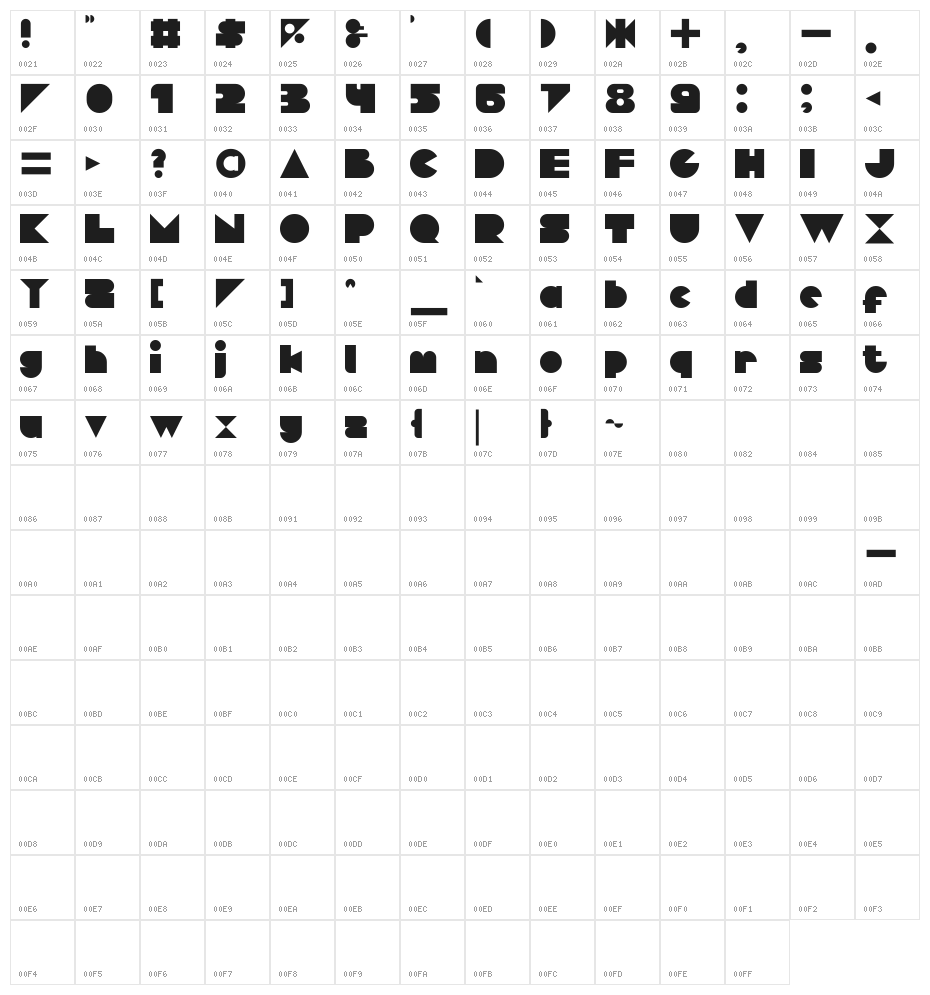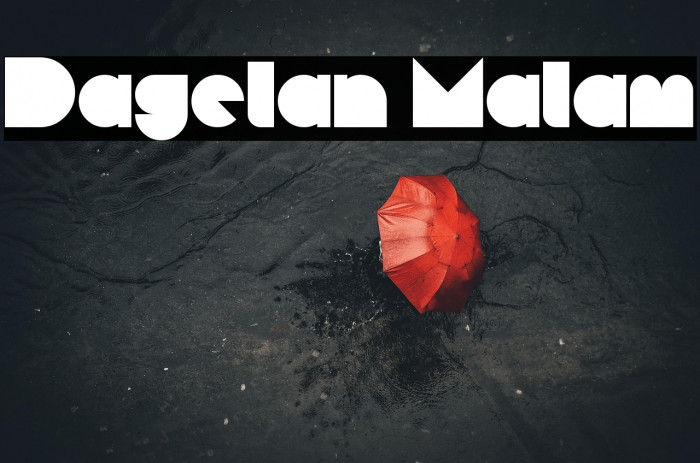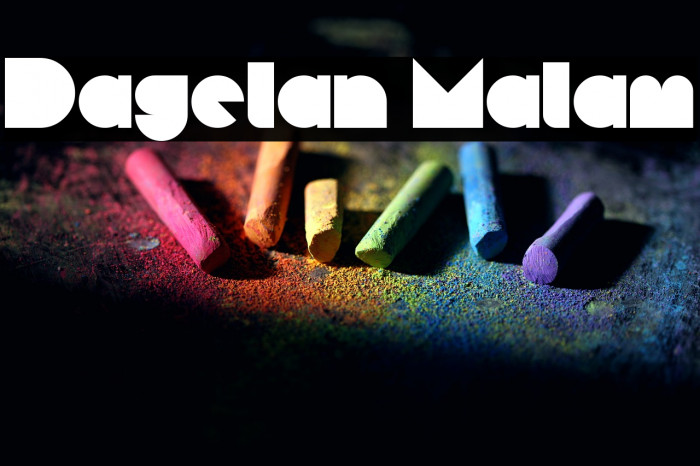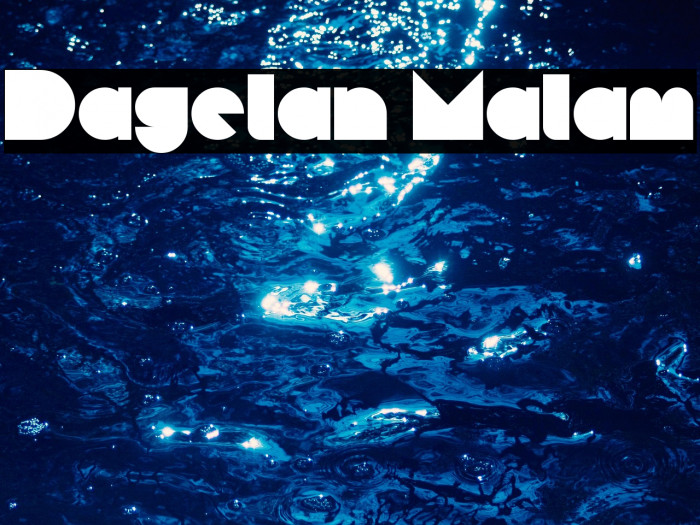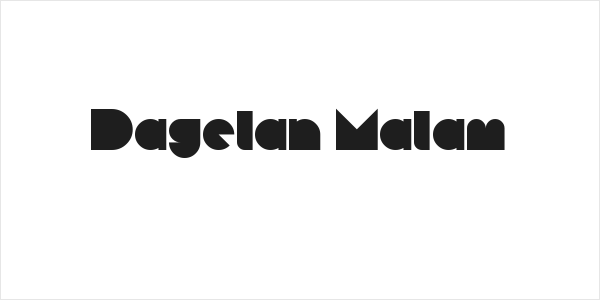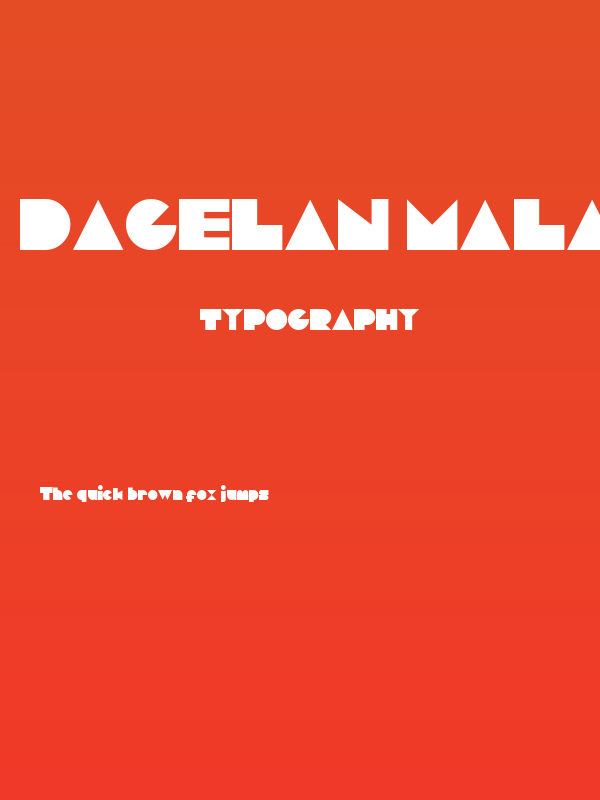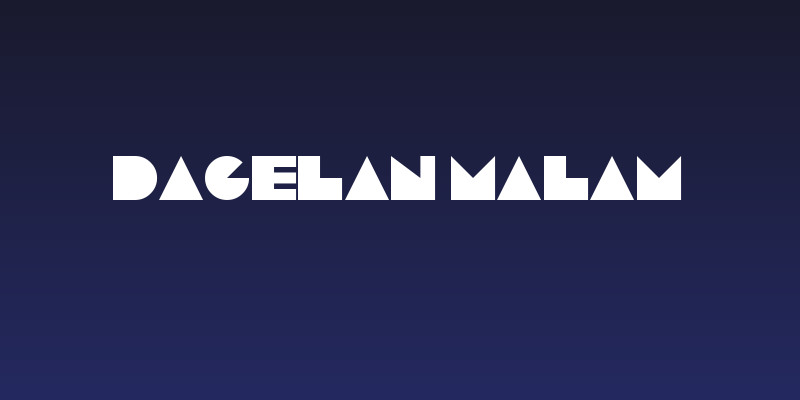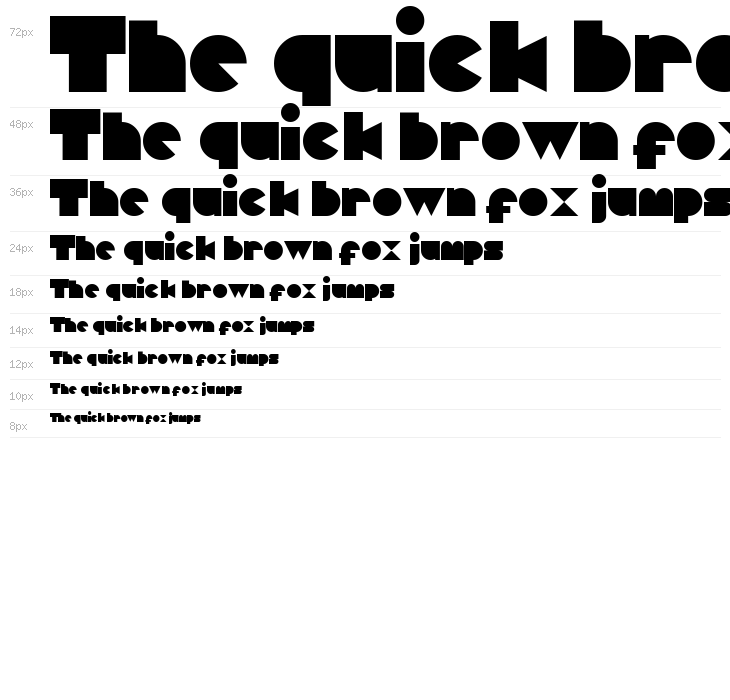
Dagelan Malam Font
Dagelan Malam Description
This font features a bold and geometric design, characterized by its solid, block-like appearance. The letters are constructed with sharp angles and straight lines, giving it a modern and futuristic feel. The uppercase and lowercase letters maintain a consistent weight, creating a uniform look across the alphabet. The numbers and special characters follow the same geometric style, ensuring cohesion throughout. This font's unique style makes it stand out, with a strong visual impact that is both eye-catching and memorable.